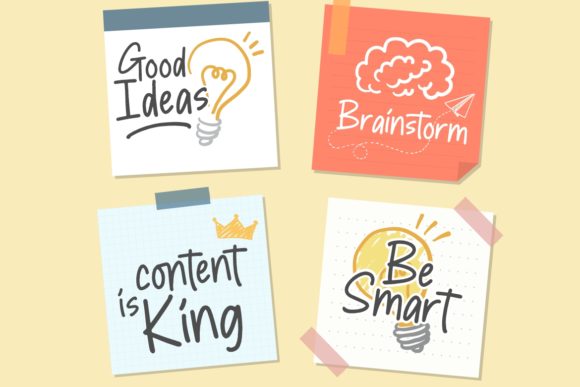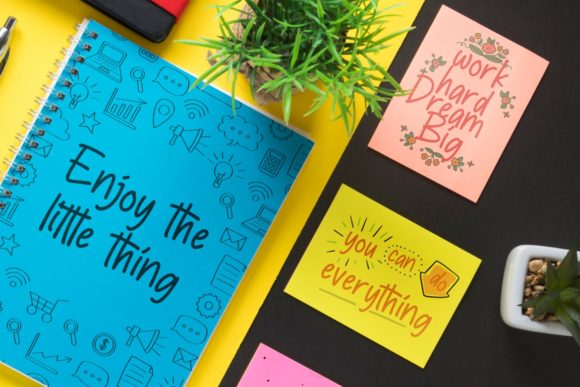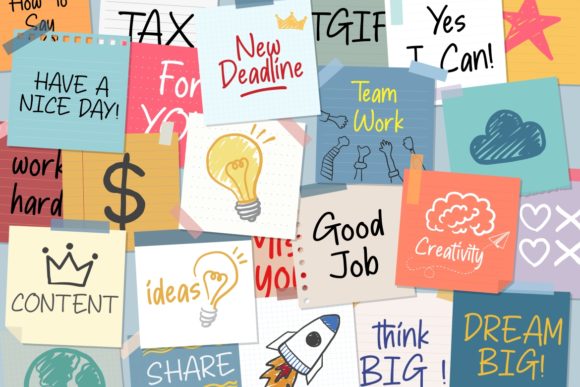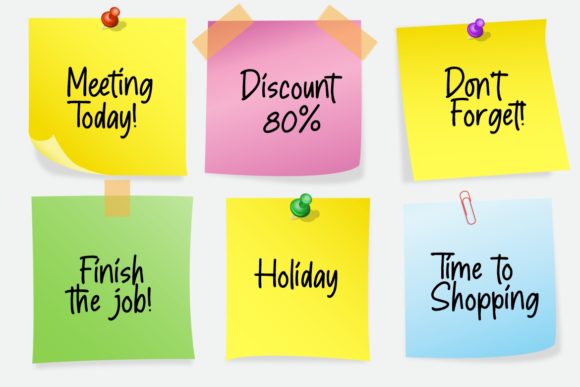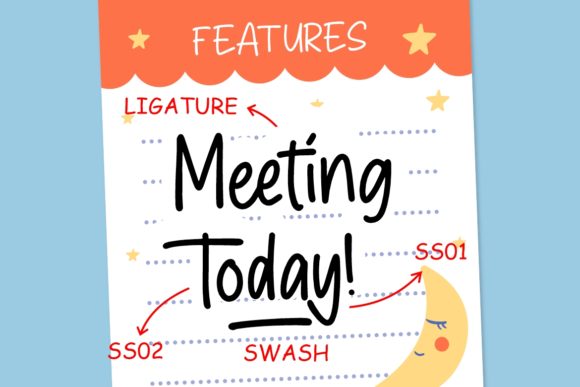
About Sticky Marker Font
Sticky Marker is a simple and friendly handwritten font that adds a cool and trendy touch to your designs. With its casual and relaxed style, it brings a sense of playfulness and approachability to your projects. Whether you’re creating social media graphics, posters, invitations, or any other design, Sticky Marker will make your text stand out.
The hand-drawn appearance of Sticky Marker gives it a unique and personal feel, as if it were created with an actual marker. The imperfect lines and slightly uneven letterforms add character and a sense of authenticity to your designs. This font is perfect for adding a handwritten touch to your artwork and making it feel more organic and relatable.
Sticky Marker’s versatility allows it to be used in various design contexts. Its friendly and approachable nature makes it suitable for designs targeting a younger audience or projects that require a more casual and laid-back vibe. It works well for creating headlines, logos, branding materials, product packaging, and more.
One of the advantages of Sticky Marker being PUA encoded is that it allows easy access to all the additional glyphs and swashes it offers. This means you can enhance your designs by adding stylish swashes, decorative elements, or alternative letterforms to create a more customized and unique look.
In summary, Sticky Marker is a simple and friendly handwritten font that brings a cool and trendy vibe to your designs. Its hand-drawn appearance adds authenticity and character, making it perfect for creating a personal and relatable touch. Whether you’re designing for social media, posters, or other projects, Sticky Marker will make your text stand out and leave a lasting impression.